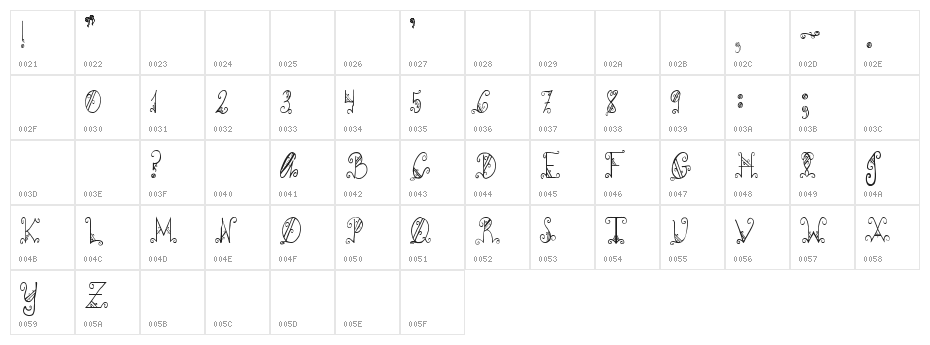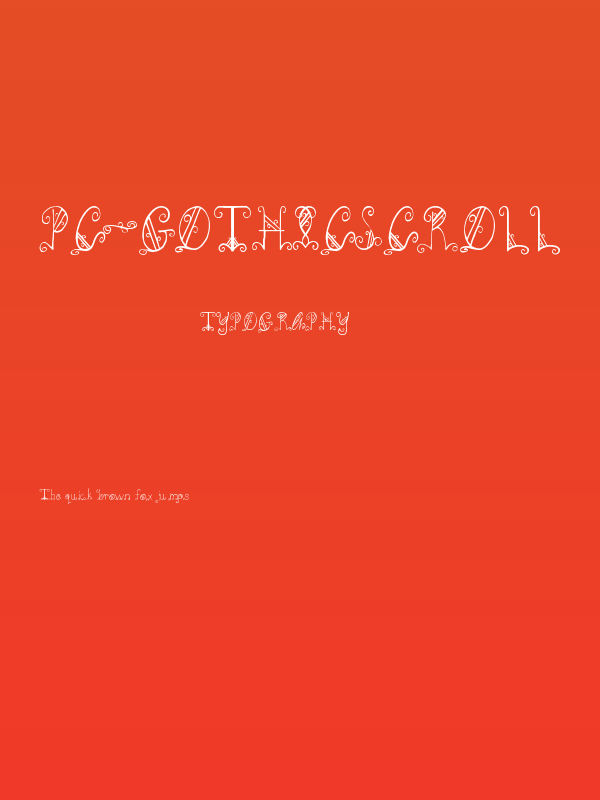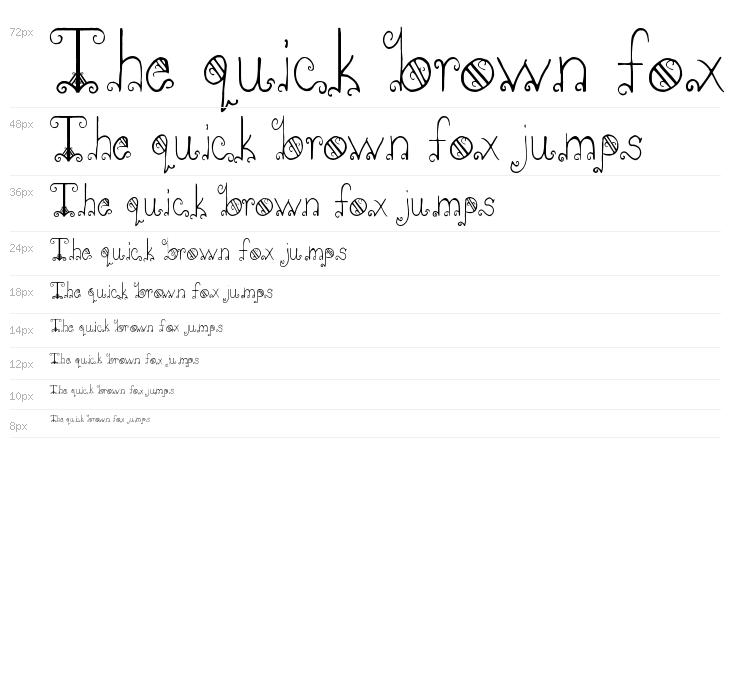
PC-GothicScroll Font
PC-GothicScroll Description
This font features an intricate and decorative style, characterized by elaborate swirls and flourishes that extend from the main strokes of each character. The uppercase letters are particularly ornate, with additional embellishments that give them a regal and artistic appearance. The lowercase letters maintain a similar decorative theme, though they are slightly more subdued. The numbers and special characters follow the same ornate design, ensuring consistency throughout the typeface. This font is ideal for projects that require a touch of elegance and creativity, such as invitations, greeting cards, or artistic posters.
| Use Case | Headlines, Artistic projects |
| Proposed Projects | Ideal for invitations, greeting cards, artistic posters, and decorative projects. |